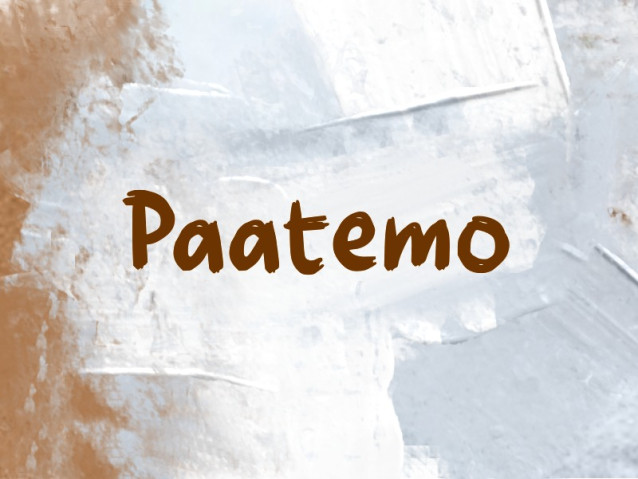
Paatemo Font
Paatemo Font is a simple and modern display font suitable for quotes, logos, headings, titles, and many more. Use it on any of your creative projects, and your designs will become outstanding!